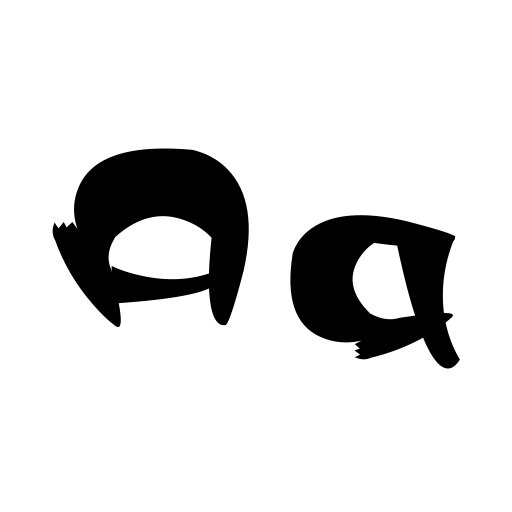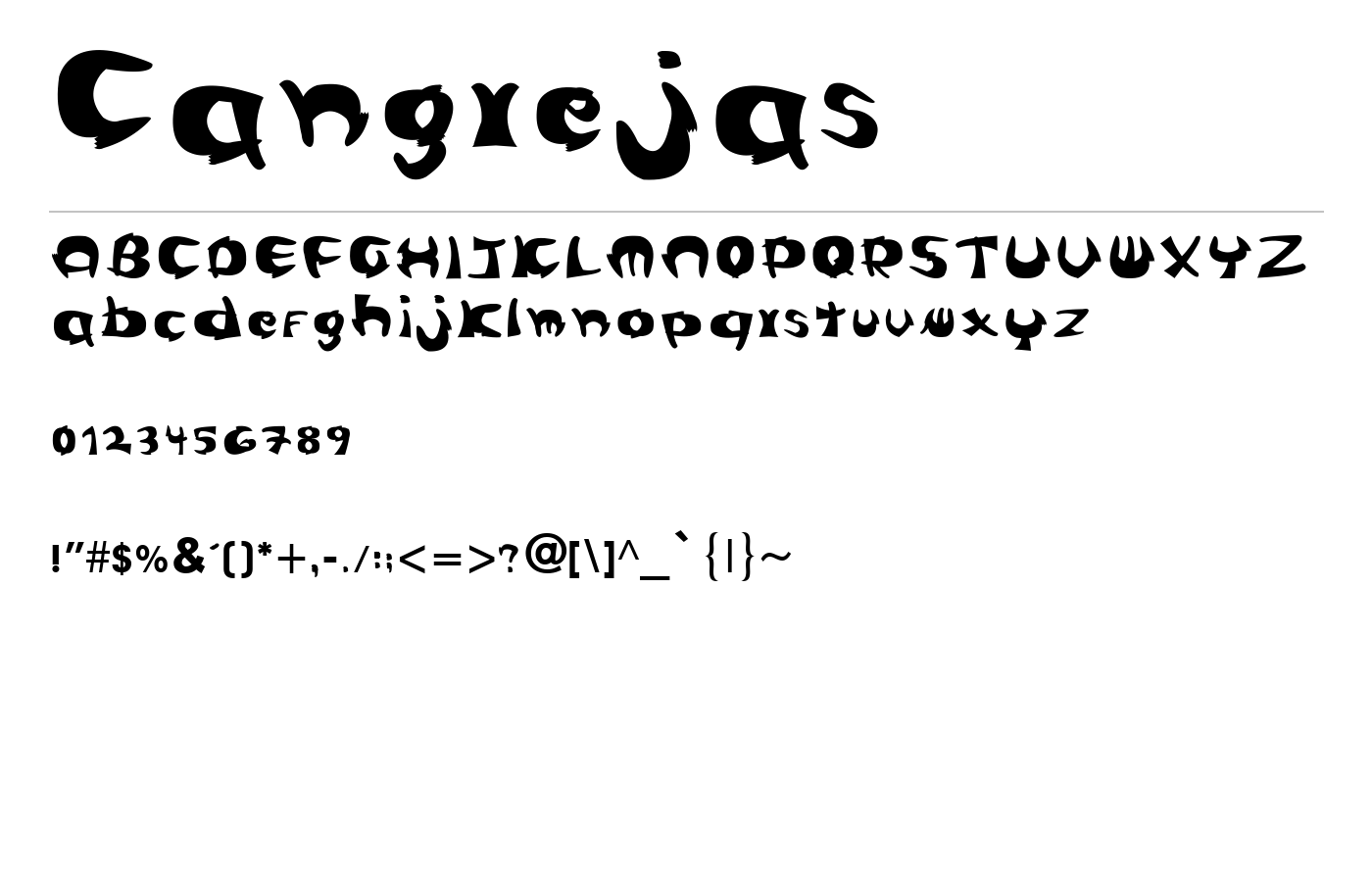
Cangrejas is a bold, playful display font with a hand-drawn, brush-like style that gives it a casual, artistic personality. Its uneven strokes and quirky letter shapes make it perfect for creative projects such as posters, logos, and packaging where a fun and informal vibe is desired. This font stands out in large sizes, adding character and energy to designs that want to communicate a lively and unique spirit.
Cangrejas Font
About Cangrejas Font